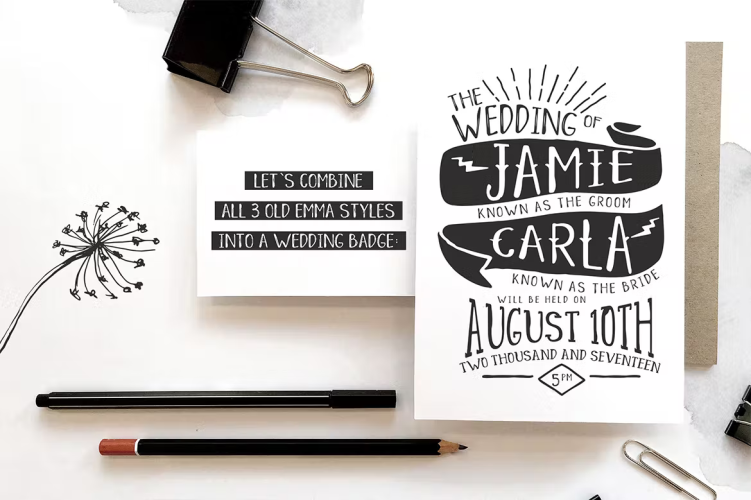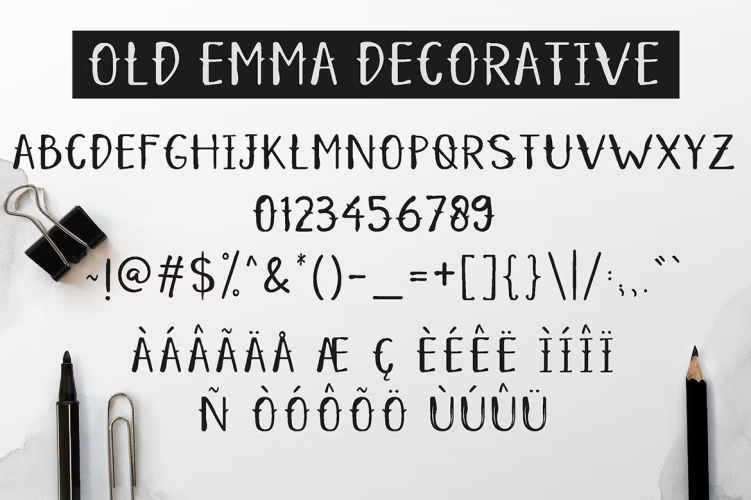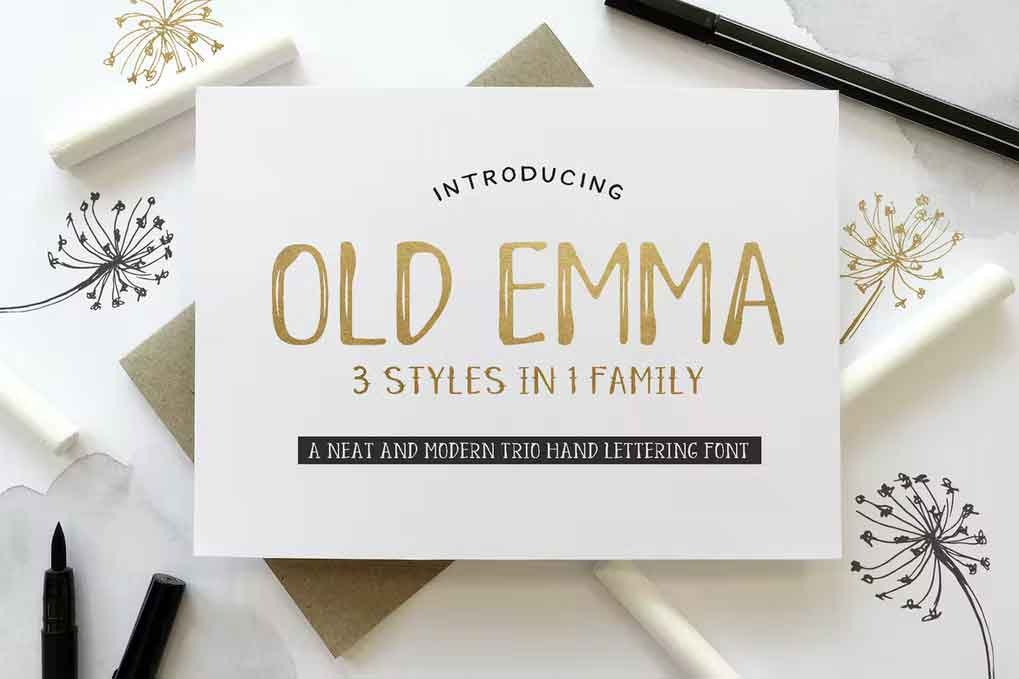
Old Emma Font
Old Emma is a trio font with mix style of modern hand lettering sans-serif and serif. There are 3 different styles: Old Emma, Old Emma Decorative, and Old Emma Serif; these three can be easily mixed just to create: your wedding cards and invites, greeting card title, signature for design work, badge and sticker, logo and return address and so forth, you decide!
Old Emma comes with accented glyphs for international languages.
Reports, white papers and book interiors hold the eye longer when the text face has real serifs; Old Emma Font keeps that rhythm without looking old-fashioned.
Food, spirits and cosmetics brands lean on serif wordmarks to suggest age and care. Old Emma Font gives that signal at wordmark size.
Set Old Emma Font for the body of an award or a diploma and keep the recipient name in a script; the pairing is what makes a document feel official.